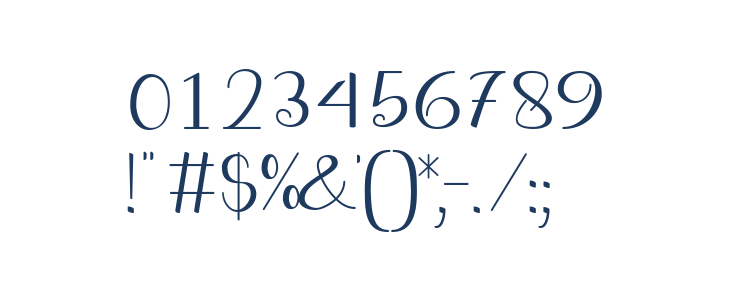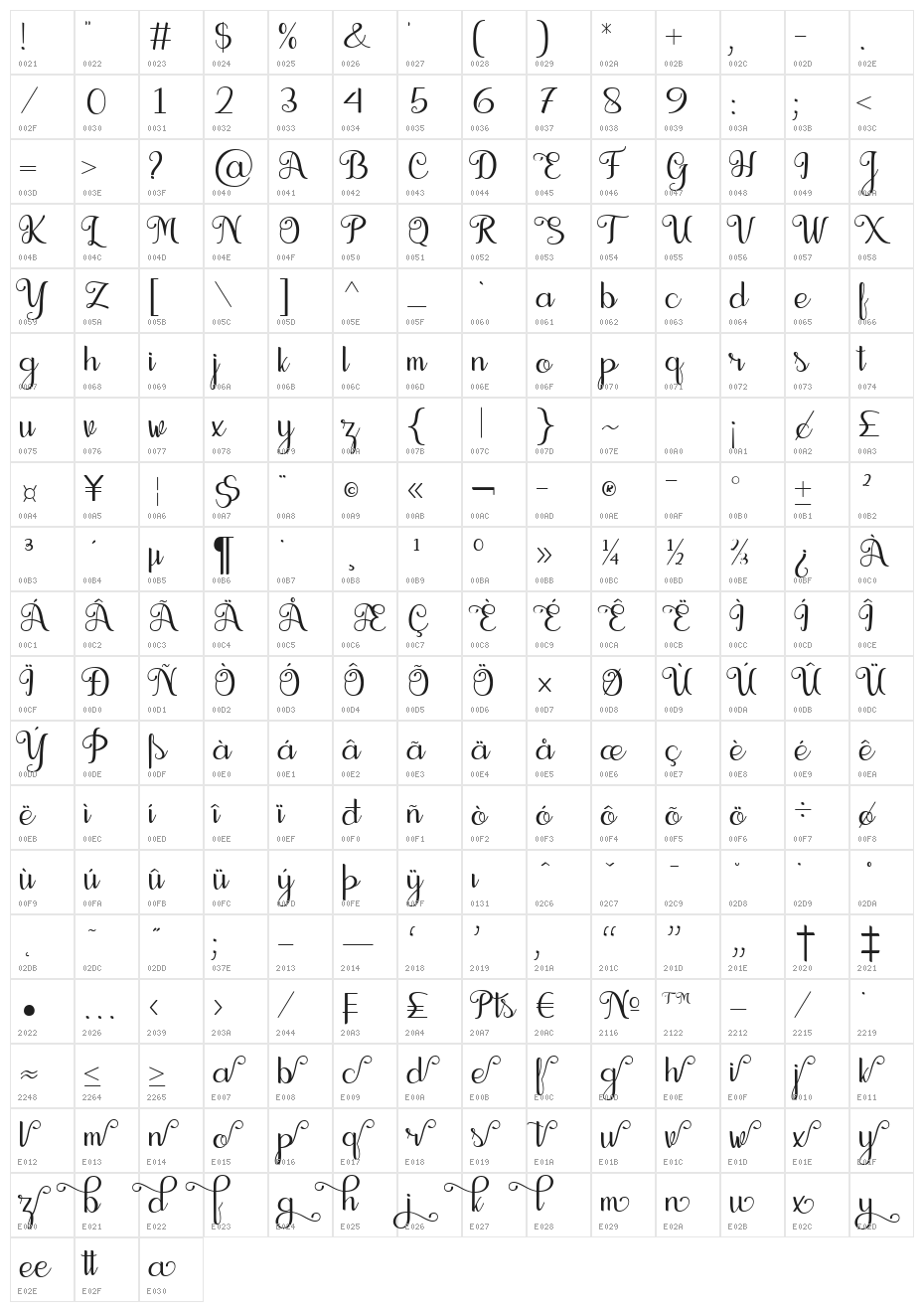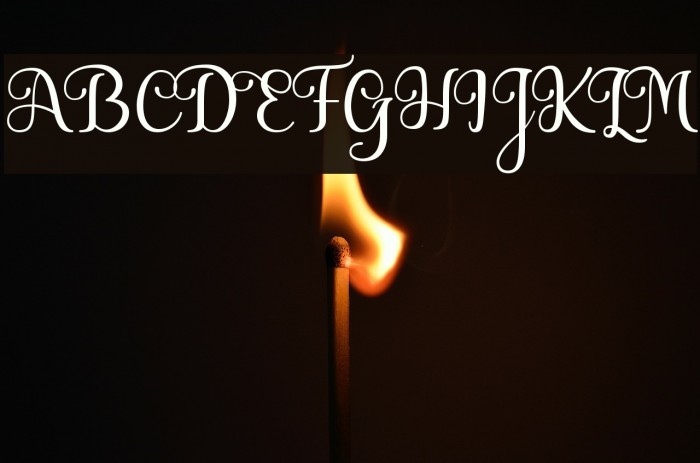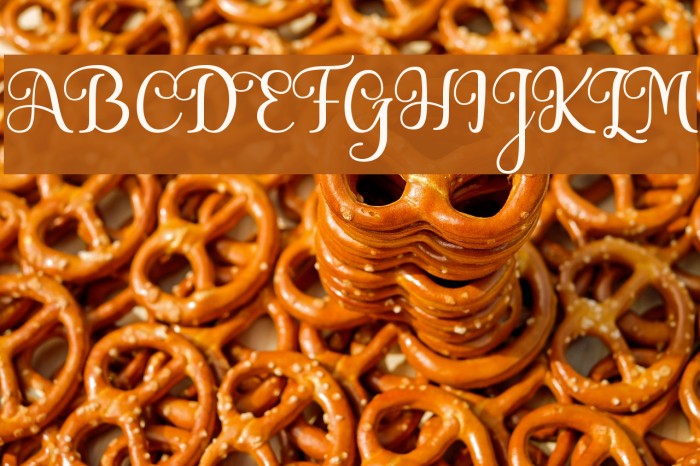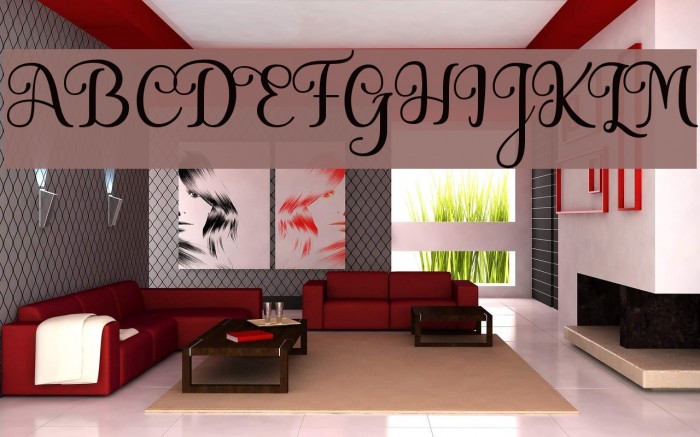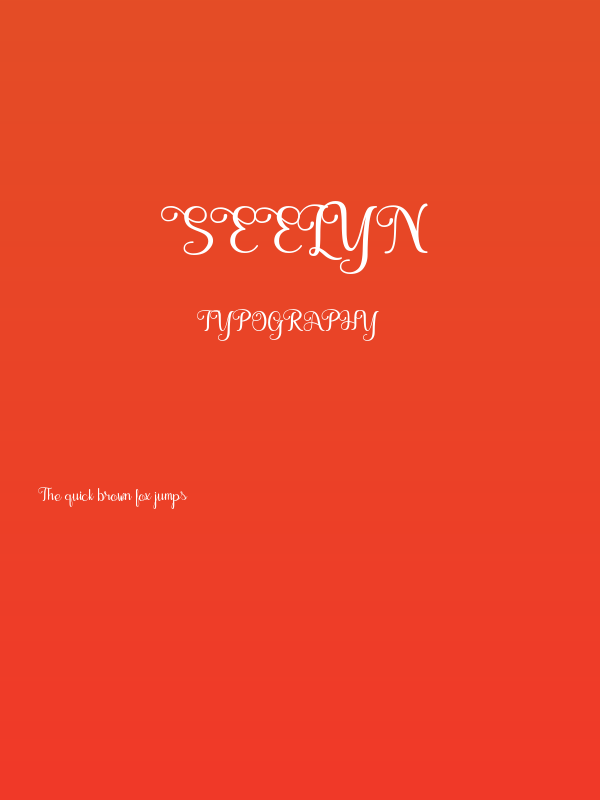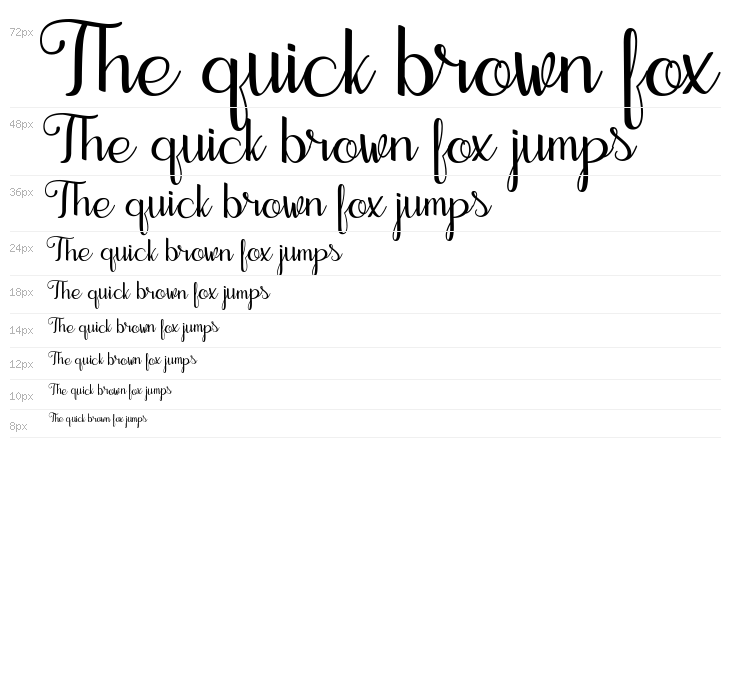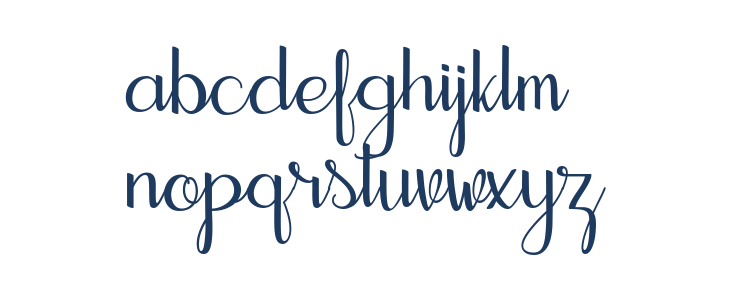
Seelyn Font
Seelyn Description
This font exhibits a charming and elegant script style, characterized by its flowing, cursive letterforms. The uppercase letters feature intricate loops and swashes, adding a touch of sophistication and flair. The lowercase letters maintain a consistent flow, with smooth connections between characters, enhancing readability while preserving the decorative nature. The numerals are designed to complement the script style, with rounded forms and subtle flourishes. Special characters are thoughtfully integrated, maintaining the overall aesthetic. This font is perfect for projects that require a personal, handwritten touch, such as invitations, greeting cards, or branding materials.
| Overall Style | Elegant, Decorative |
| Use Case | Headlines, Invitations, Branding |
| Proposed Projects | Ideal for wedding invitations, greeting cards, personal branding, and elegant packaging designs. |